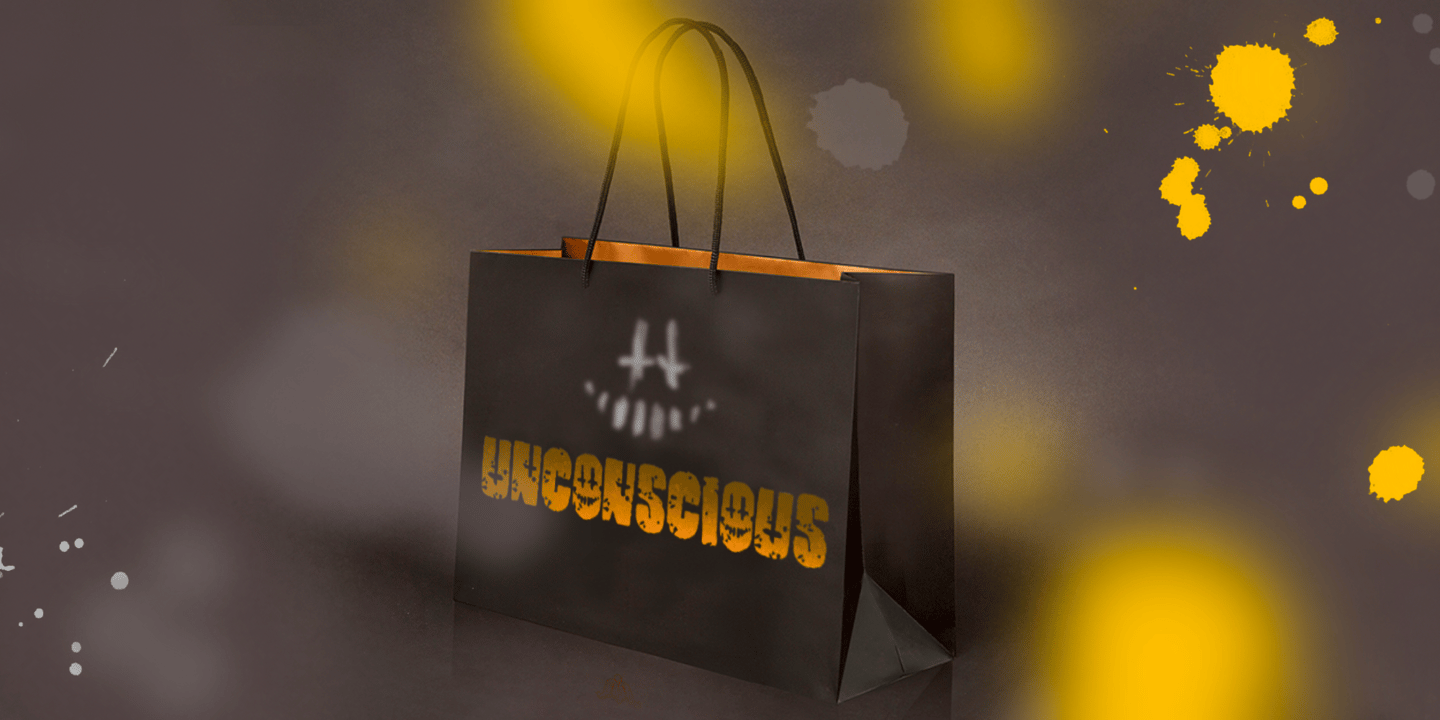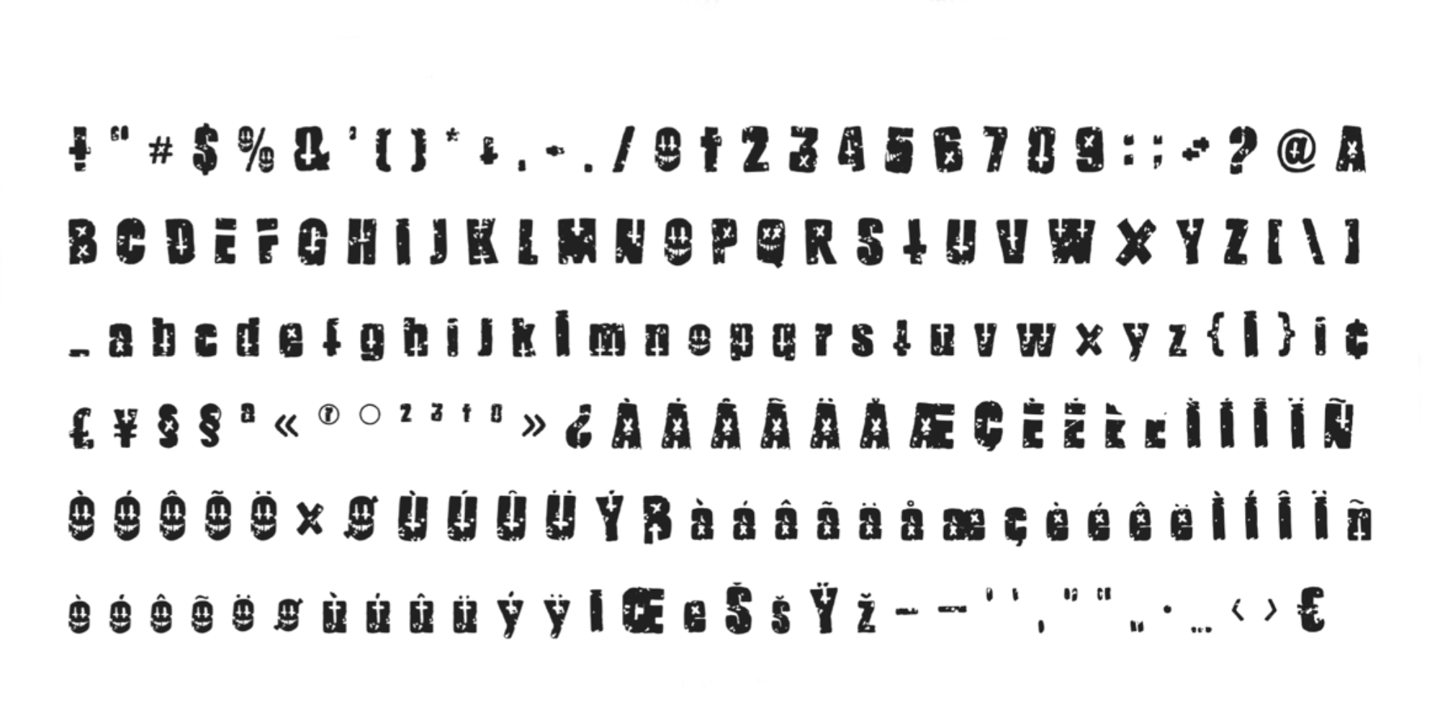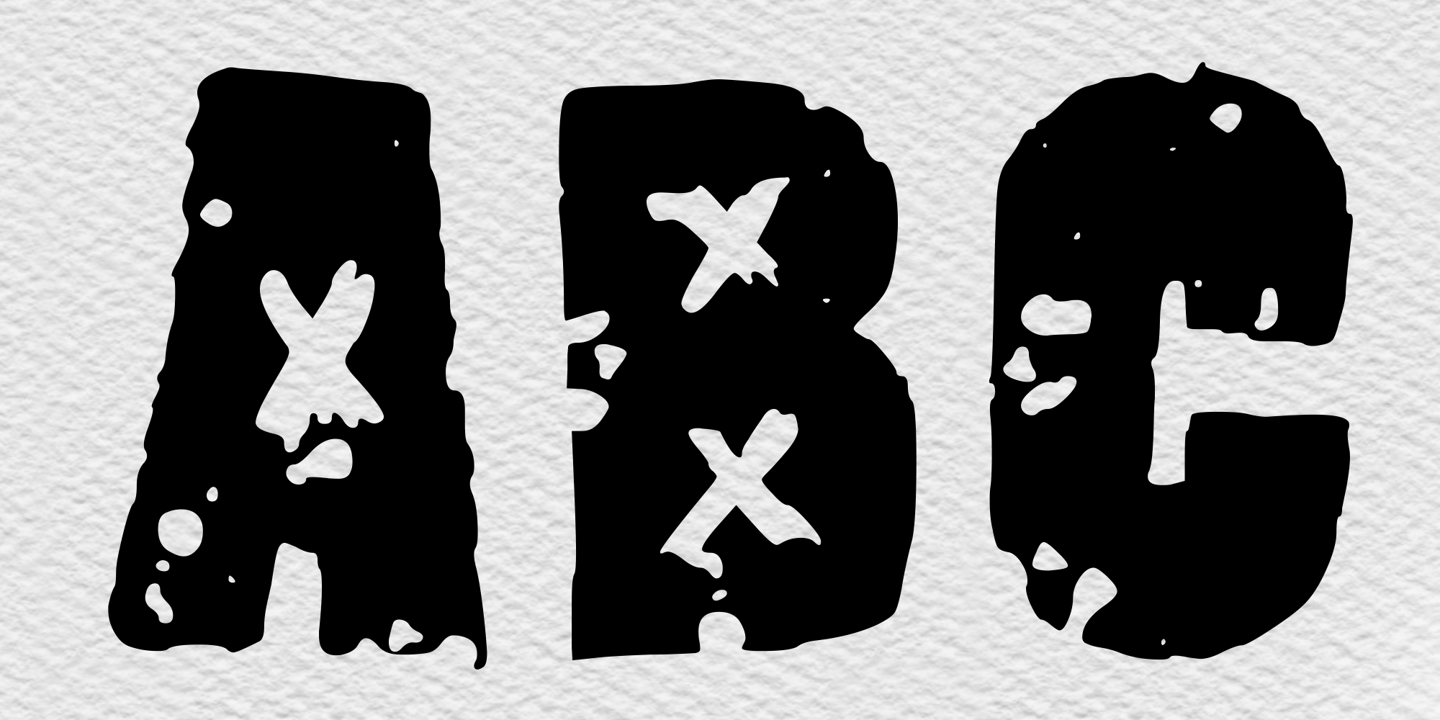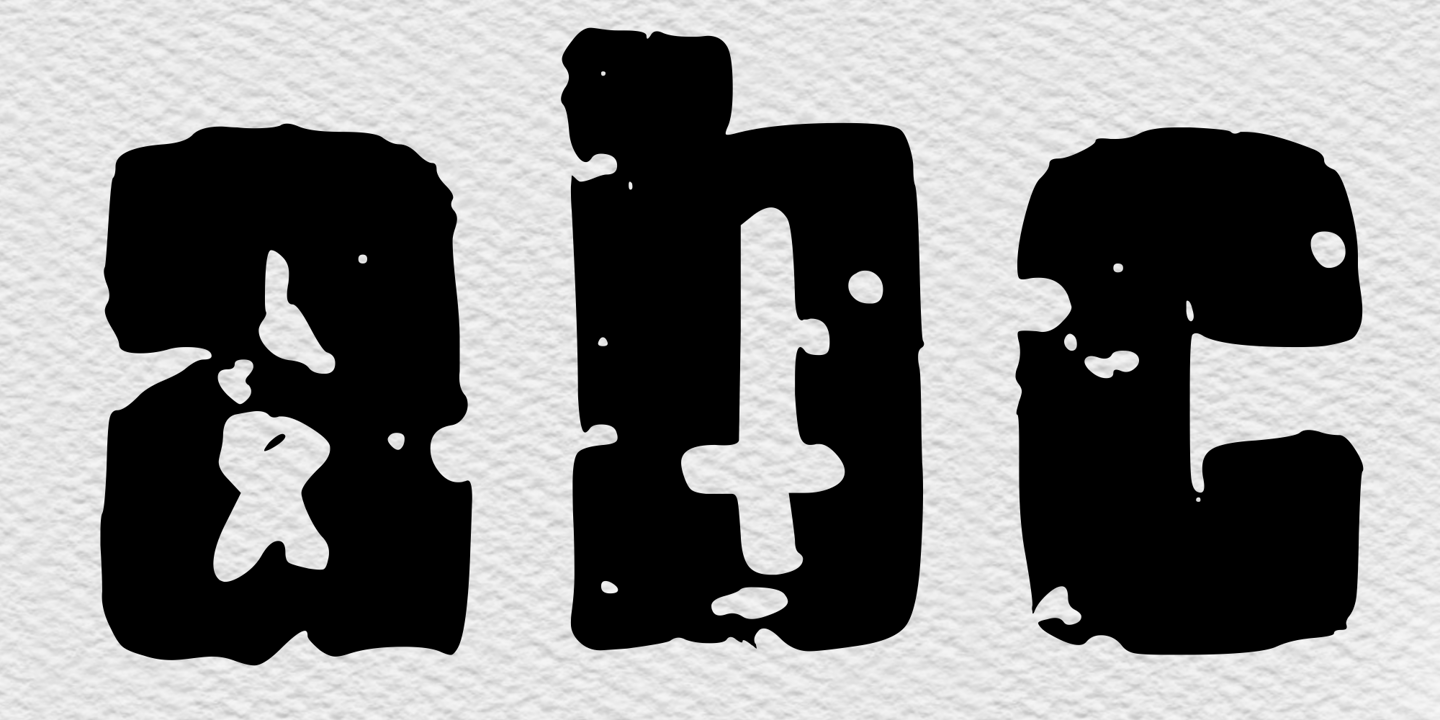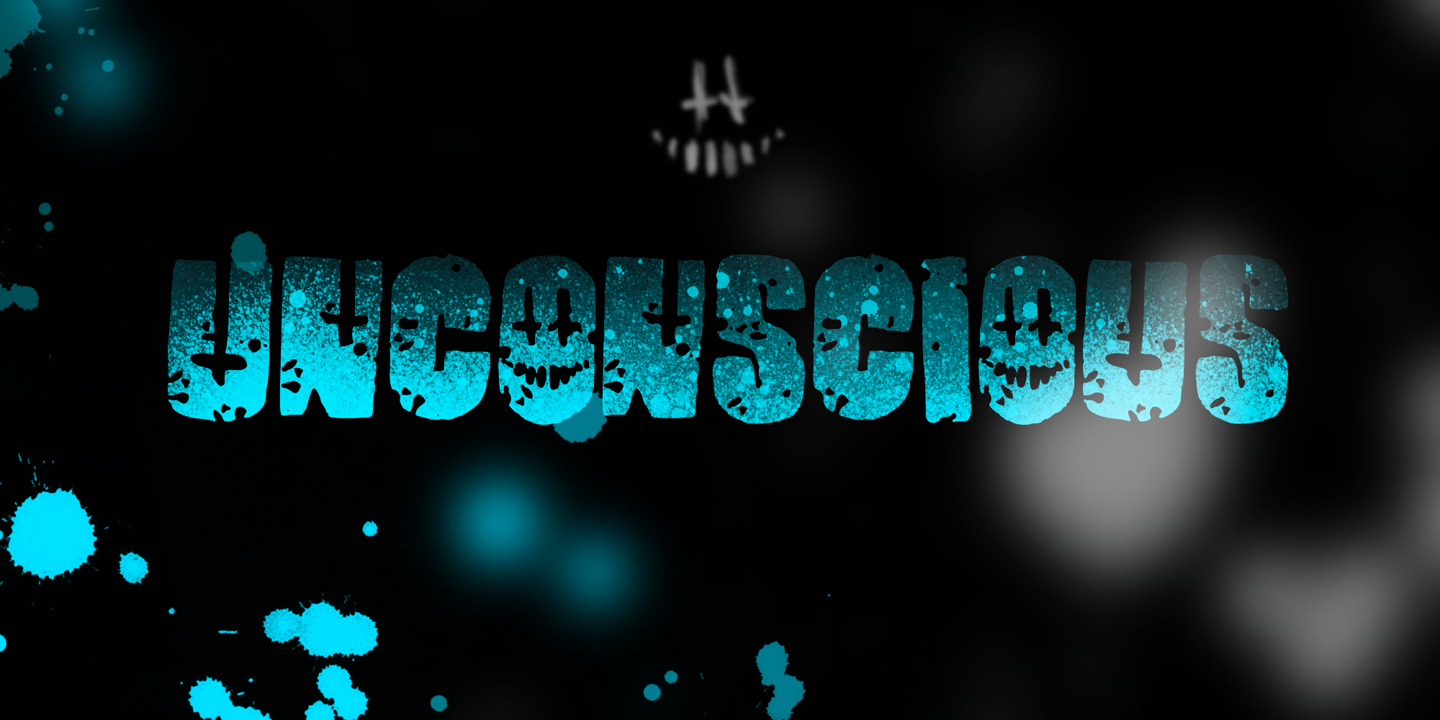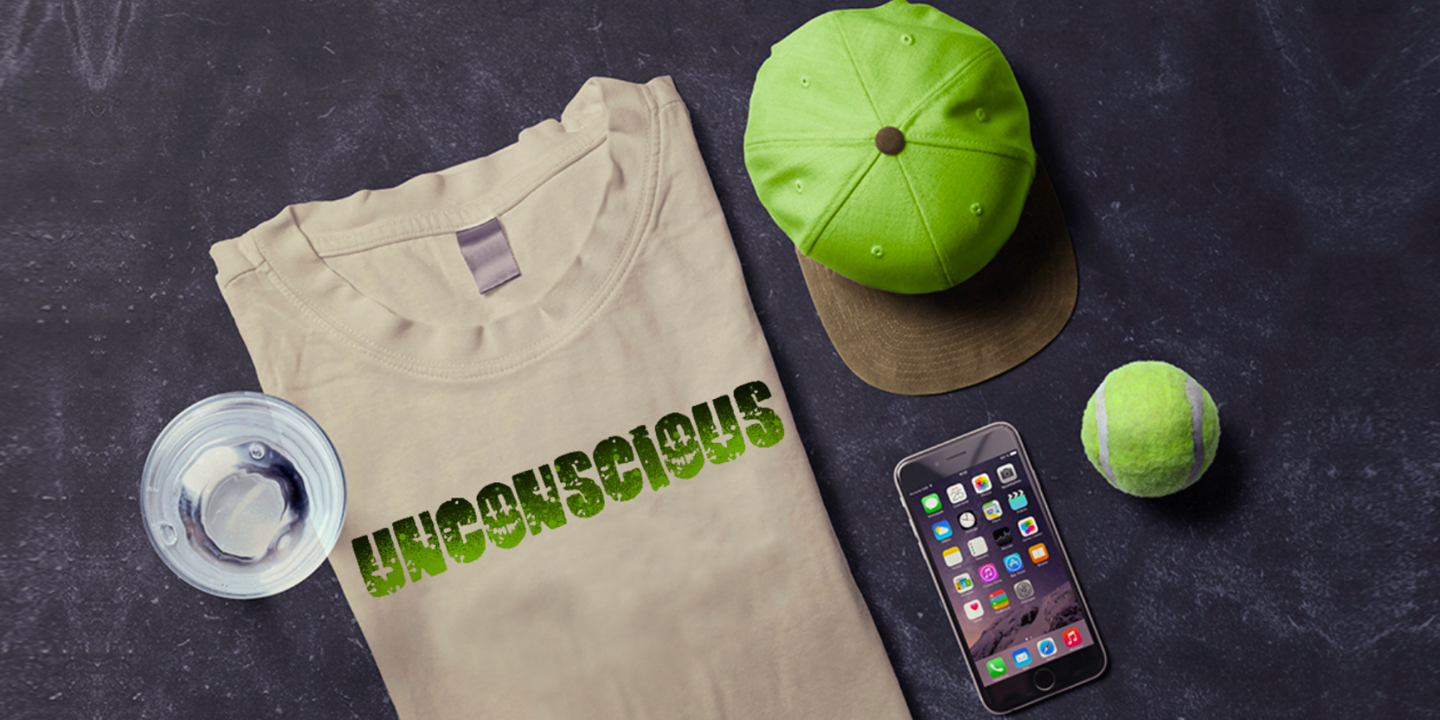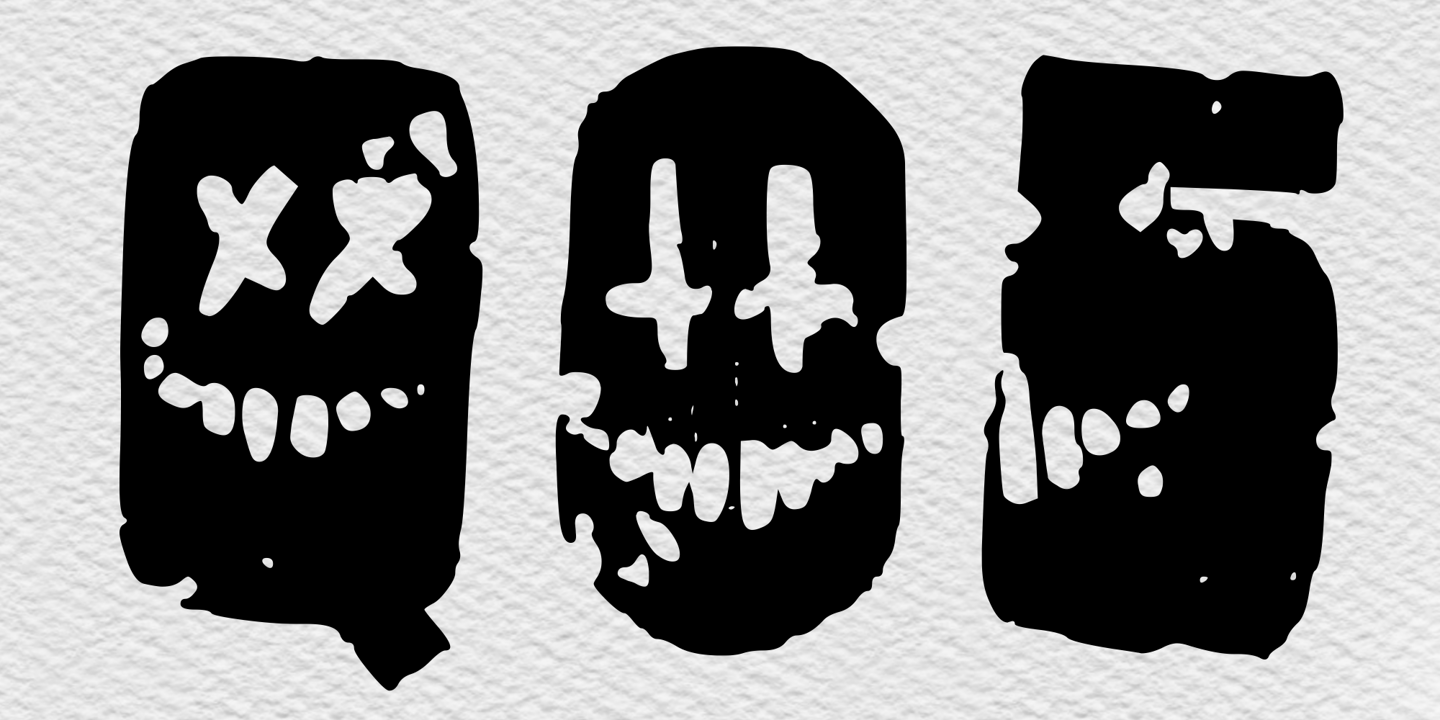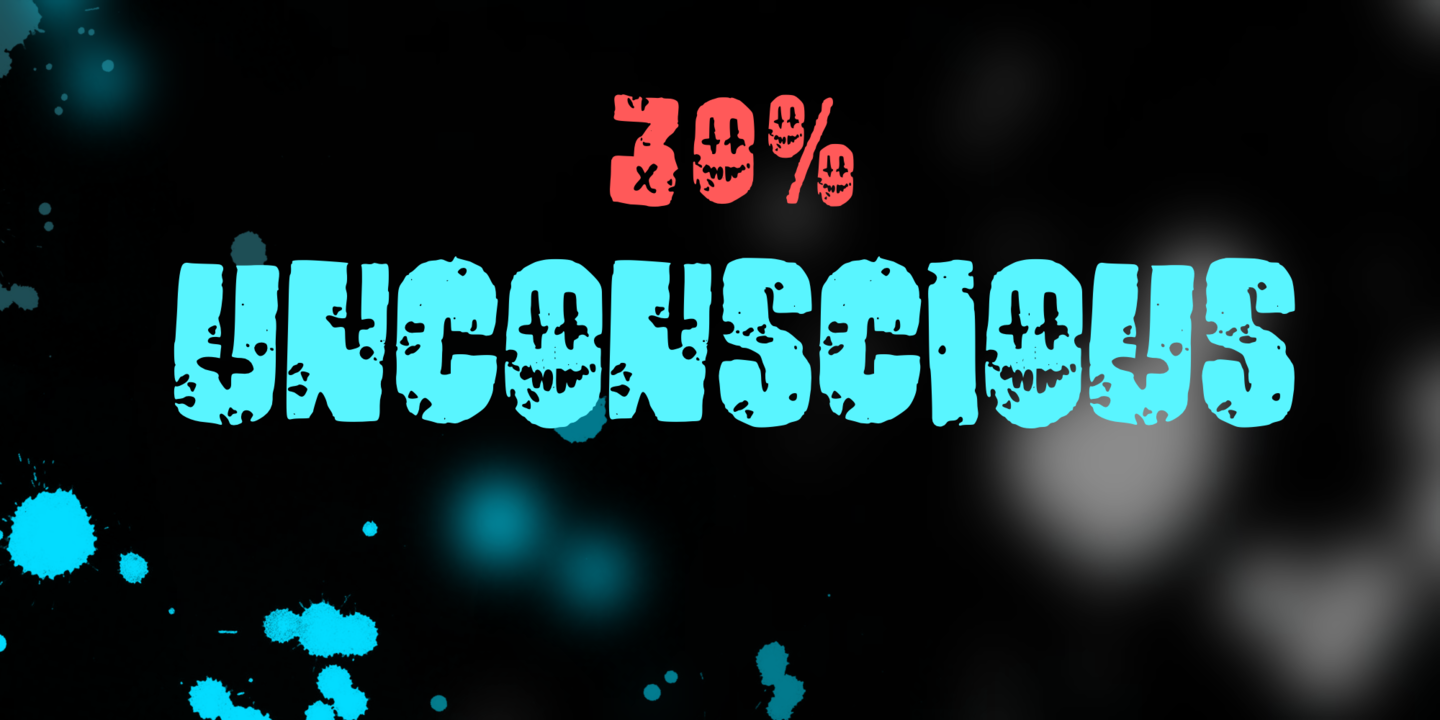
Unconscious Regular
When we fall asleep, we become free in our thoughts, in our judgments, in our choice, we decide on bold actions and words. This font will bring all this to life. UNCONSCIOUS-This font is for brave, free and liberated creators. For people with a good sense of humor and able to derive joy even from bad things.